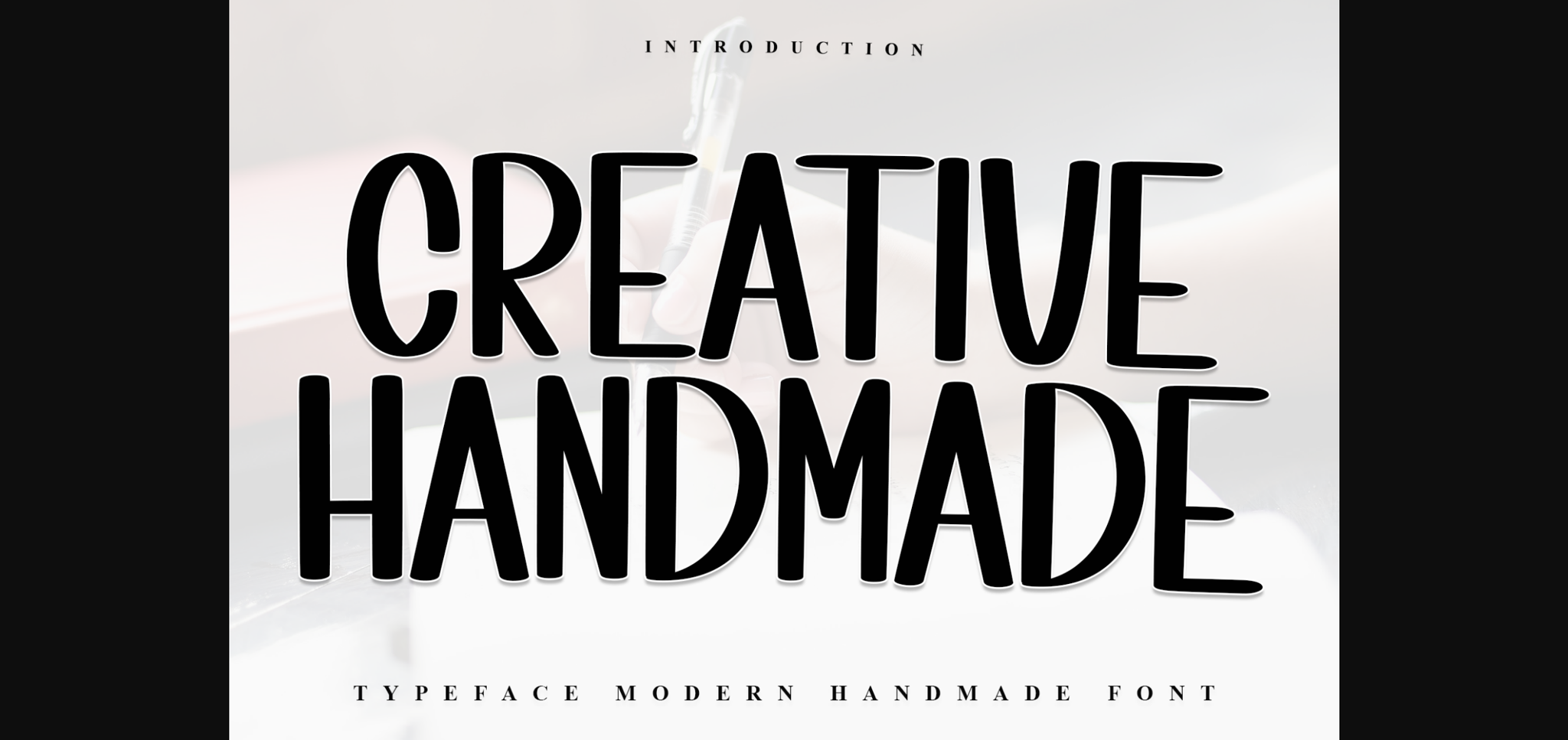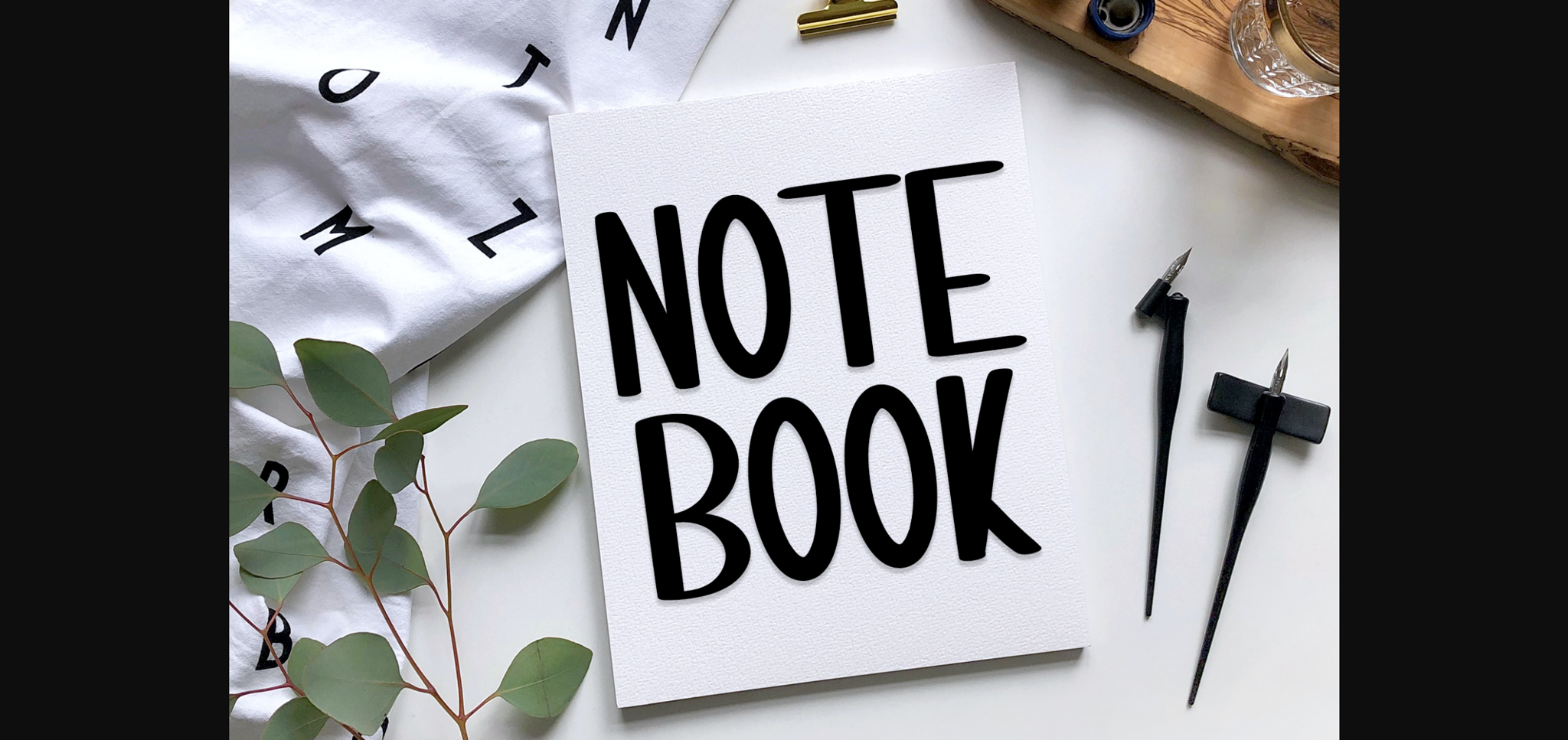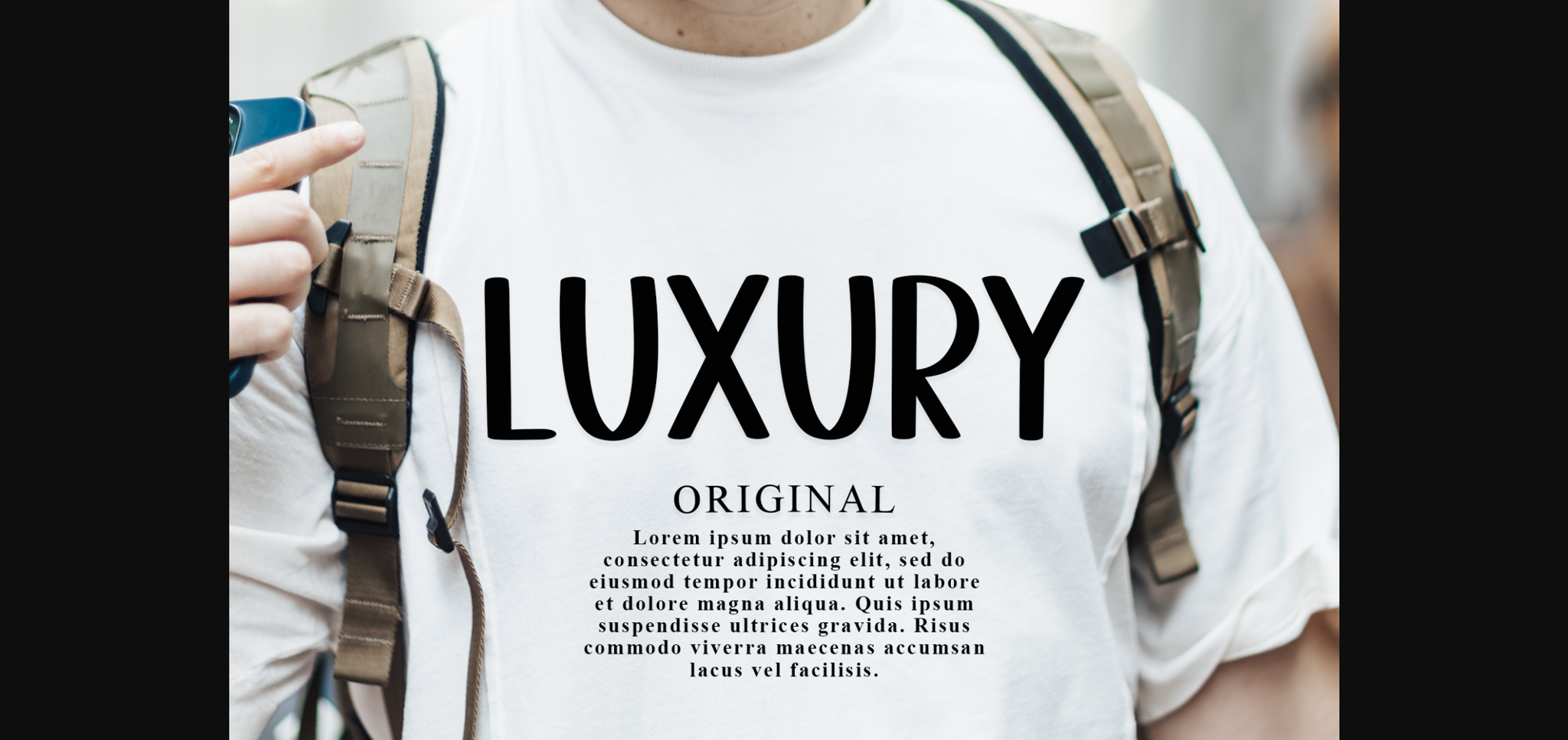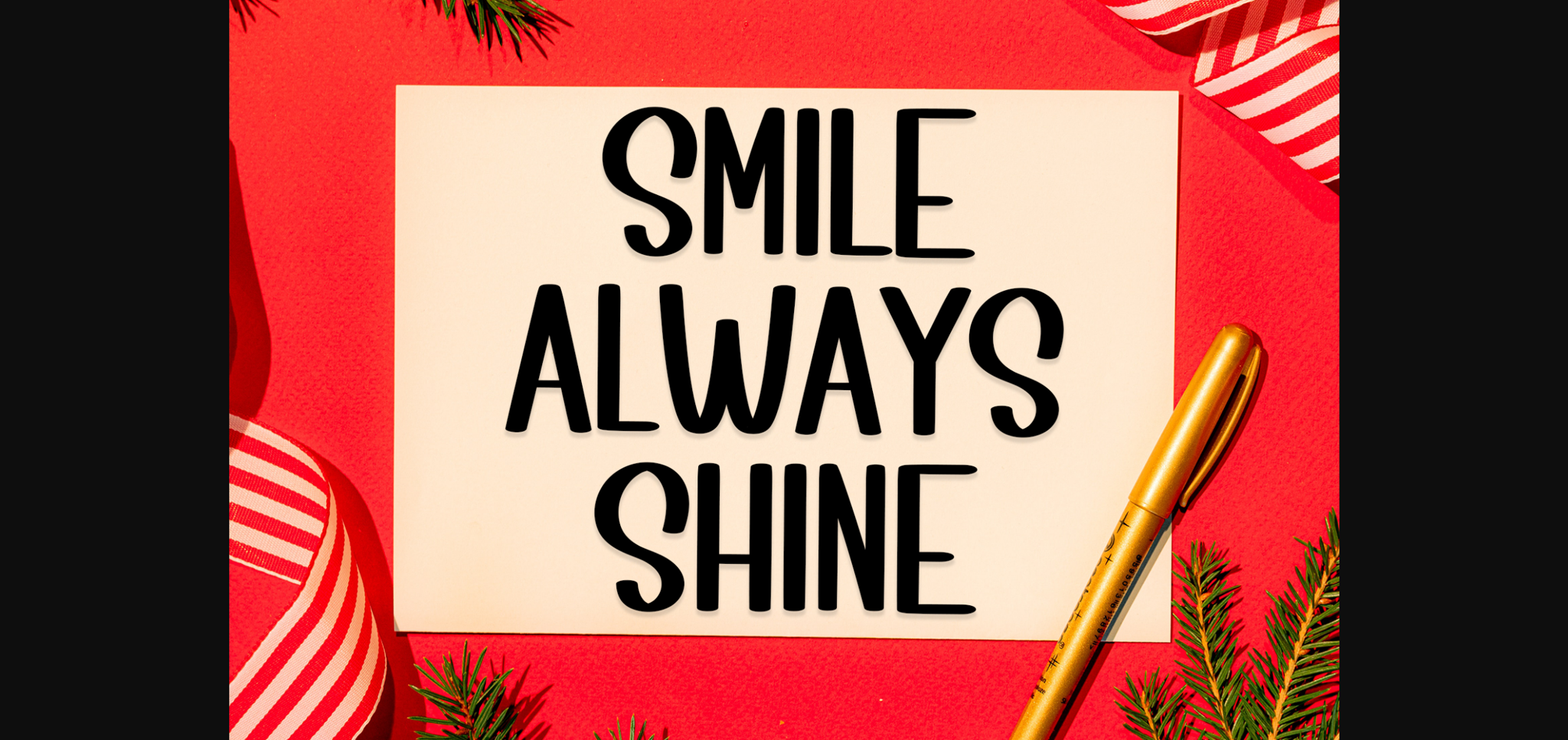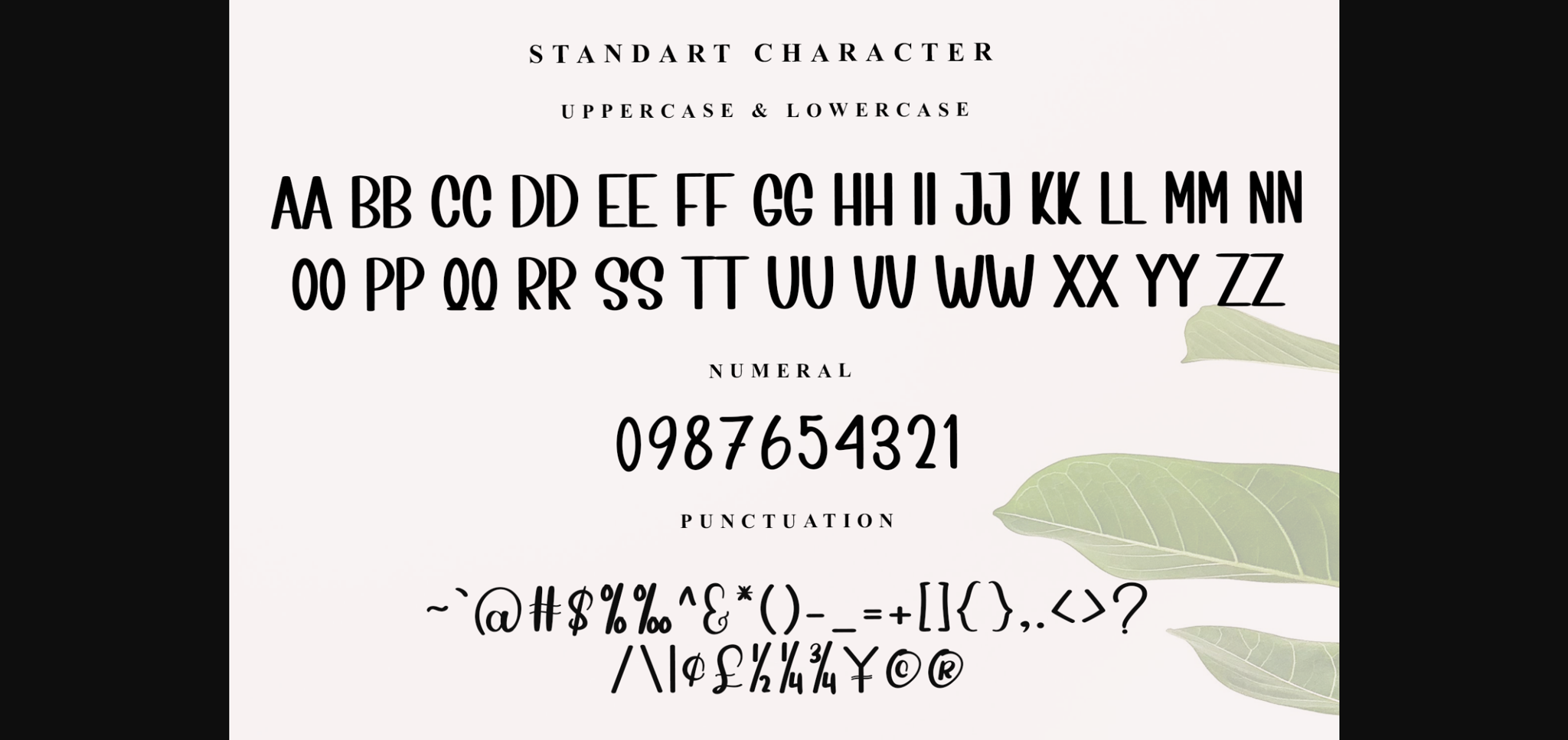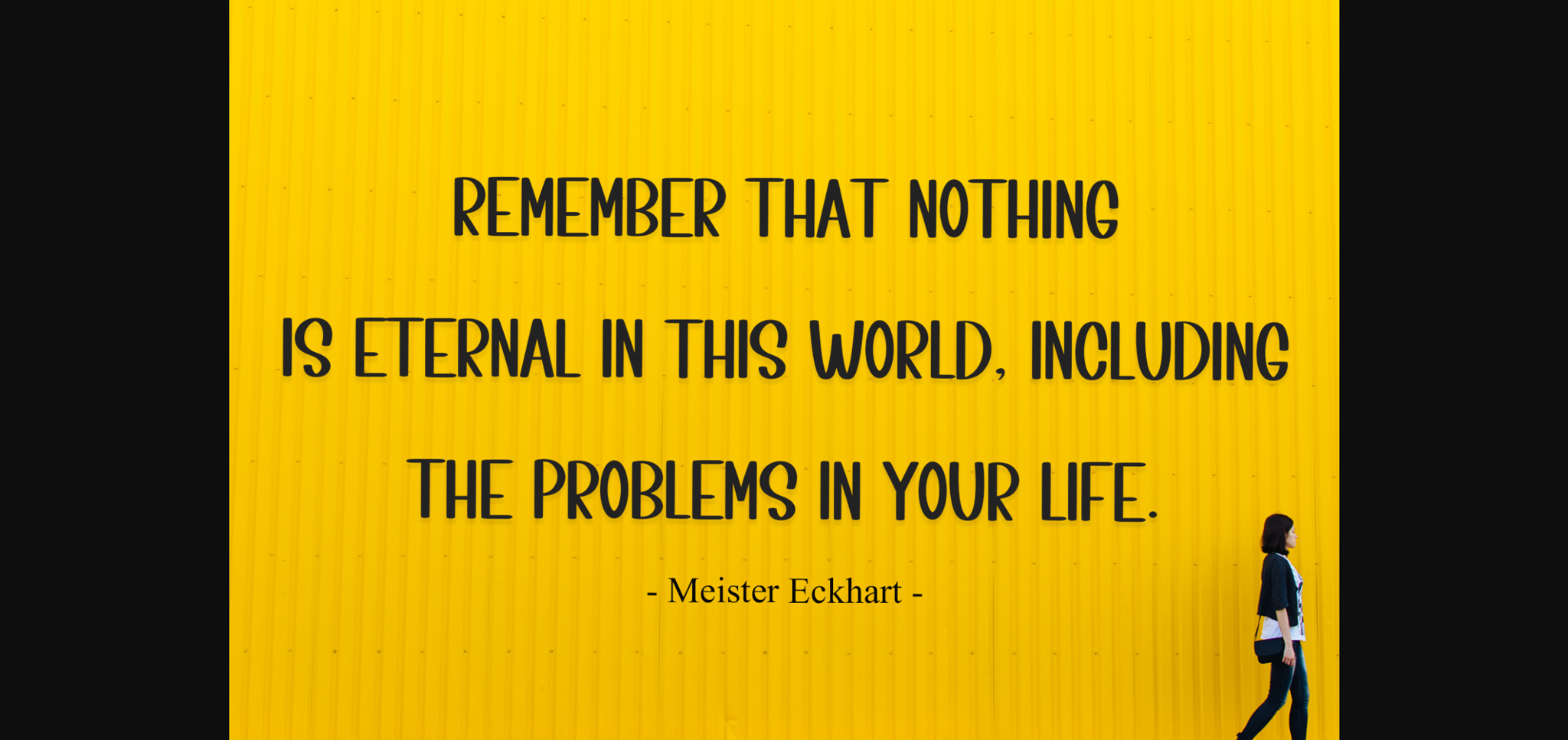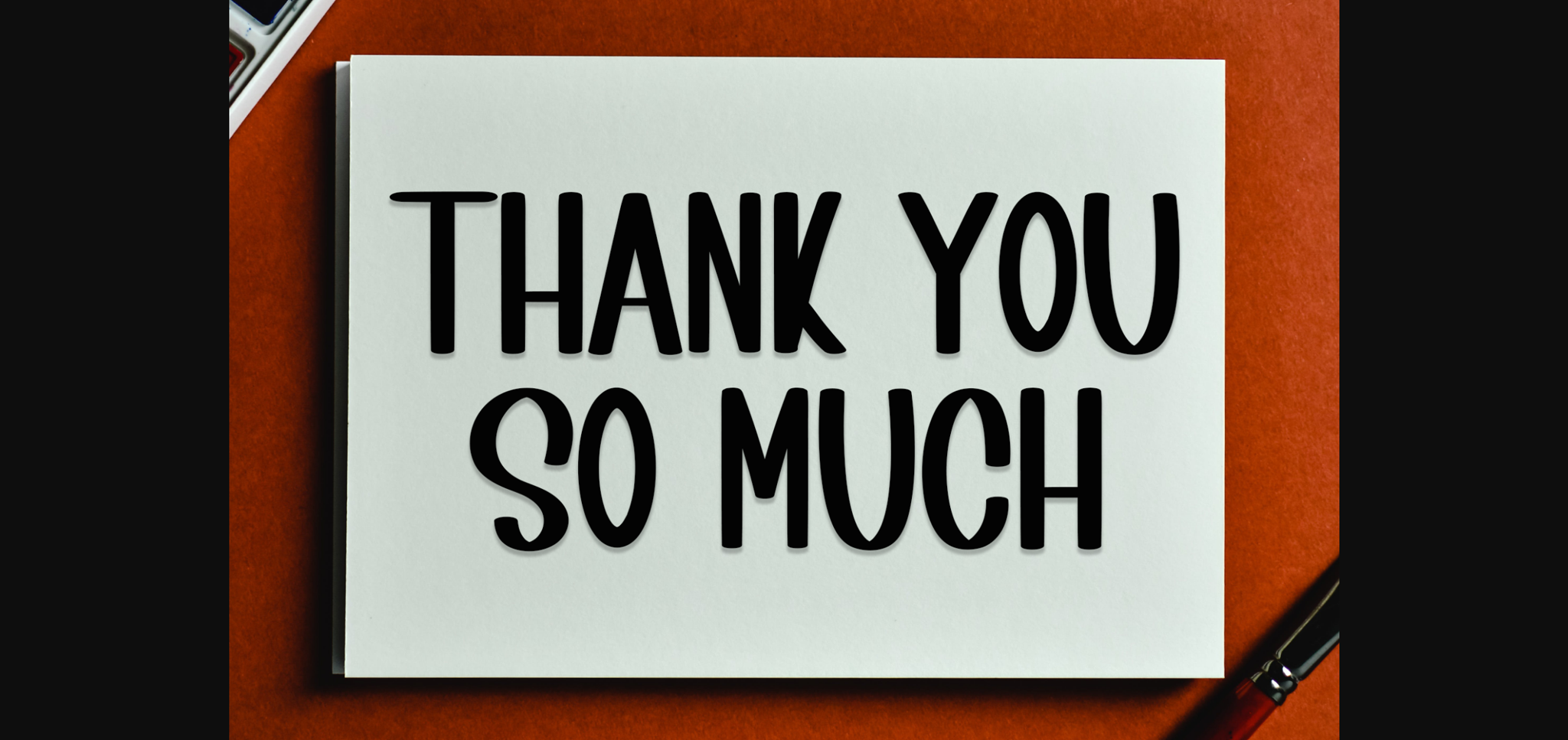
Creative Handmade Font
About Creative Handmade Font
Creative Handmade is a charming sans-serif font imbued with a sense of freshness and casual elegance. Its fluid strokes and organic lines evoke a laid-back vibe, making it perfect for various design projects. Whether used for branding, invitations, or social media graphics, Creative Handmade adds a touch of warmth and personality.